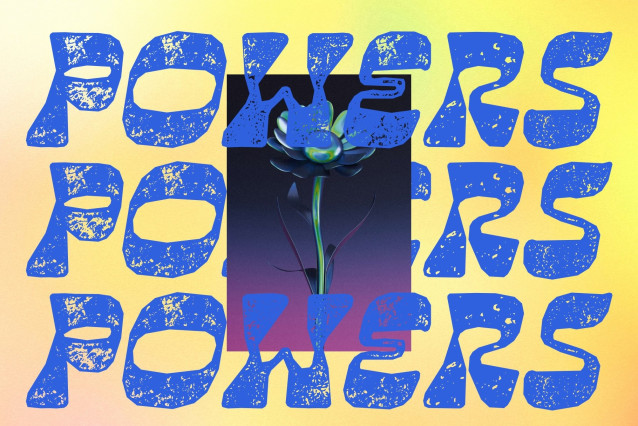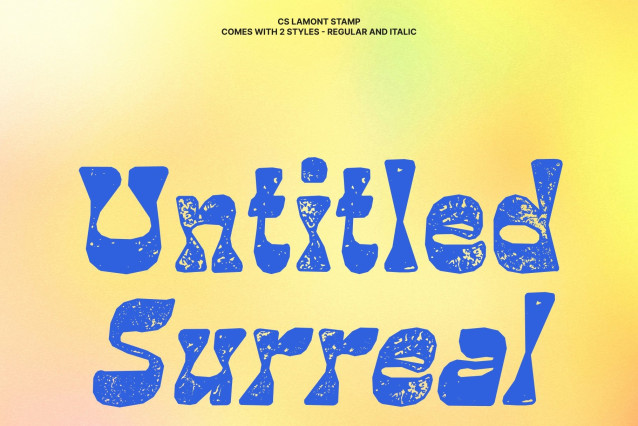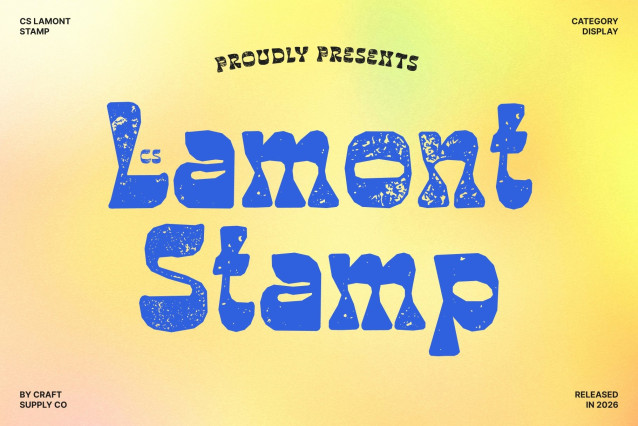
CS Lamont Stamp Font
CS Lamont Stamp – Bold Reverse Contrast Display Font
Unique Reverse Contrast with Textured Stamp Character
This is a striking display font featuring a distinctive reverse contrast design, where bold outer strokes meet elegantly thinner inner details. Enhanced with a stamp effect, the letterforms gain distressed edges and ink texture, creating a captivating blend of bold structure and vintage print character.
Funky Retro Vibe with Handcrafted Appeal
Infused with a playful retro spirit, the stamped texture adds warmth and authenticity, giving the impression of ink pressed onto paper. This combination enhances the font’s nostalgic personality while maintaining a fresh, modern presence.
Versatile for Creative and Expressive Projects
This font is perfect for music posters, fashion branding, packaging, editorial headlines, and promotional graphics. Its unique structure and textured finish ensure designs feel bold, creative, and memorable.